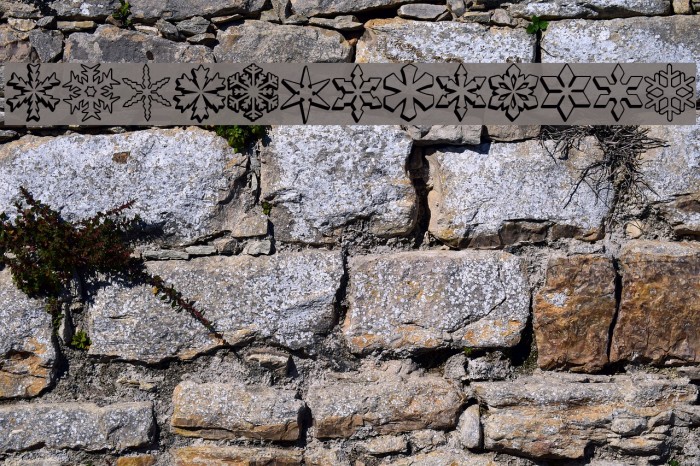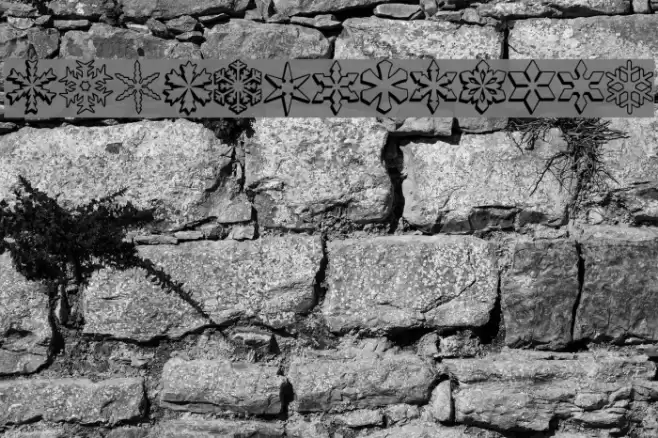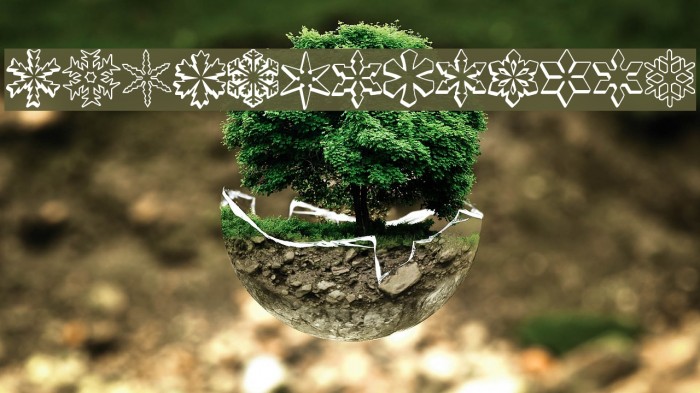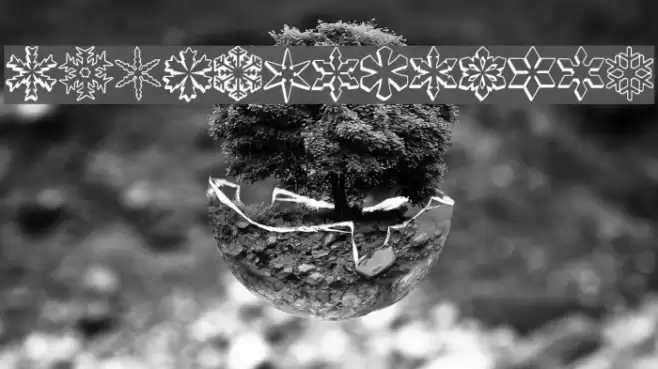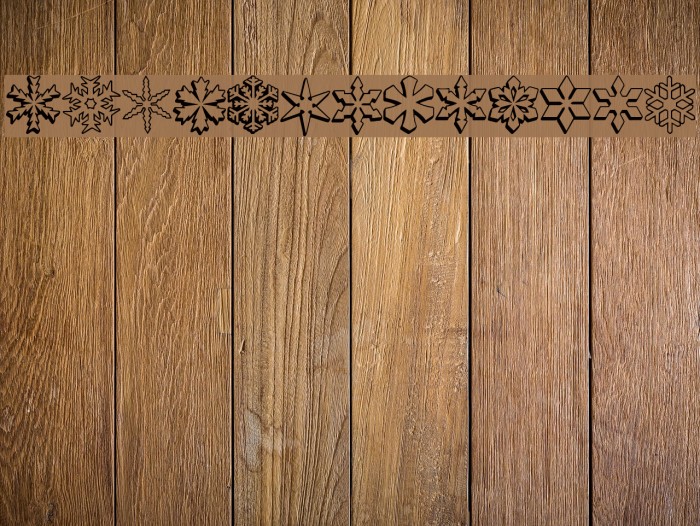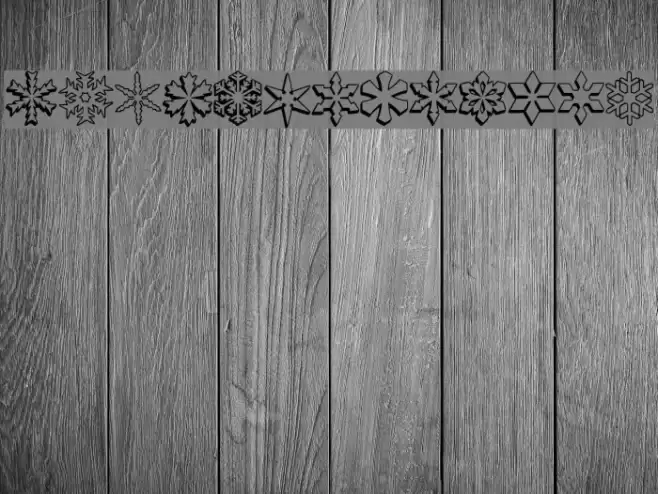
ryp_sflake2 Font
ryp_sflake2 Description
This decorative font features a series of intricate snowflake designs, each with unique patterns and shapes. The characters are crafted to resemble various snowflake styles, ranging from simple geometric forms to more complex, detailed designs. The font is visually striking, with each character offering a distinct representation of winter's iconic symbol. The overall appearance is whimsical and festive, making it ideal for seasonal projects. The characters are evenly spaced, ensuring readability while maintaining the decorative nature of the font.